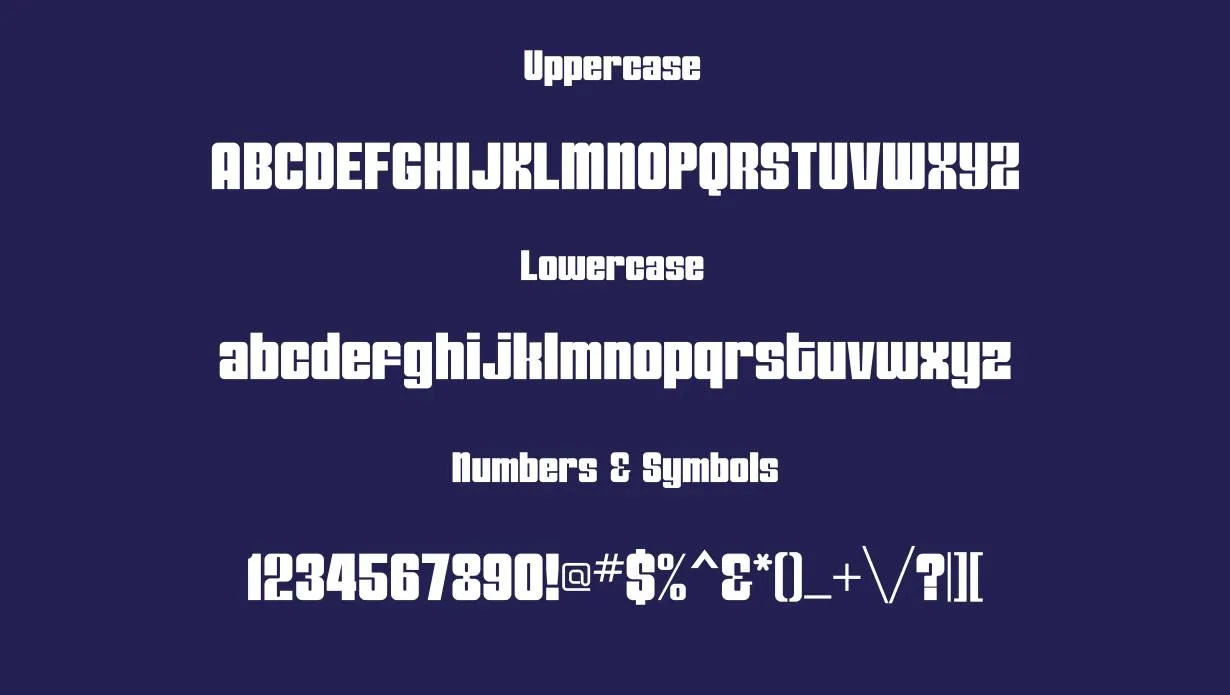
The Omnivore font is like a buffet of letters. With its versatile and modern design, it’s perfect for crafting diverse menus, designing dynamic product labels, or adding a touch of culinary flair to your projects.
This font has a bold weight and slightly expanded width, ensuring your words convey a sense of abundance. Picture using the Omnivore font for a restaurant logo, turning your text into a feast for the eyes.